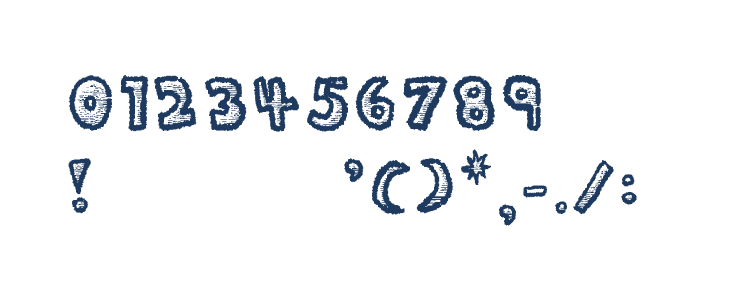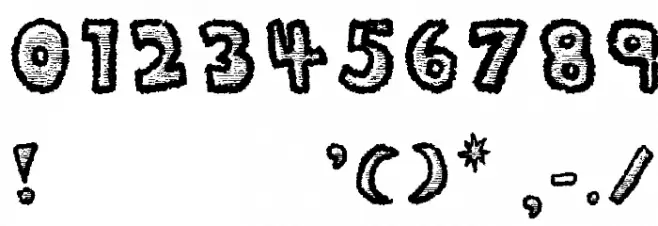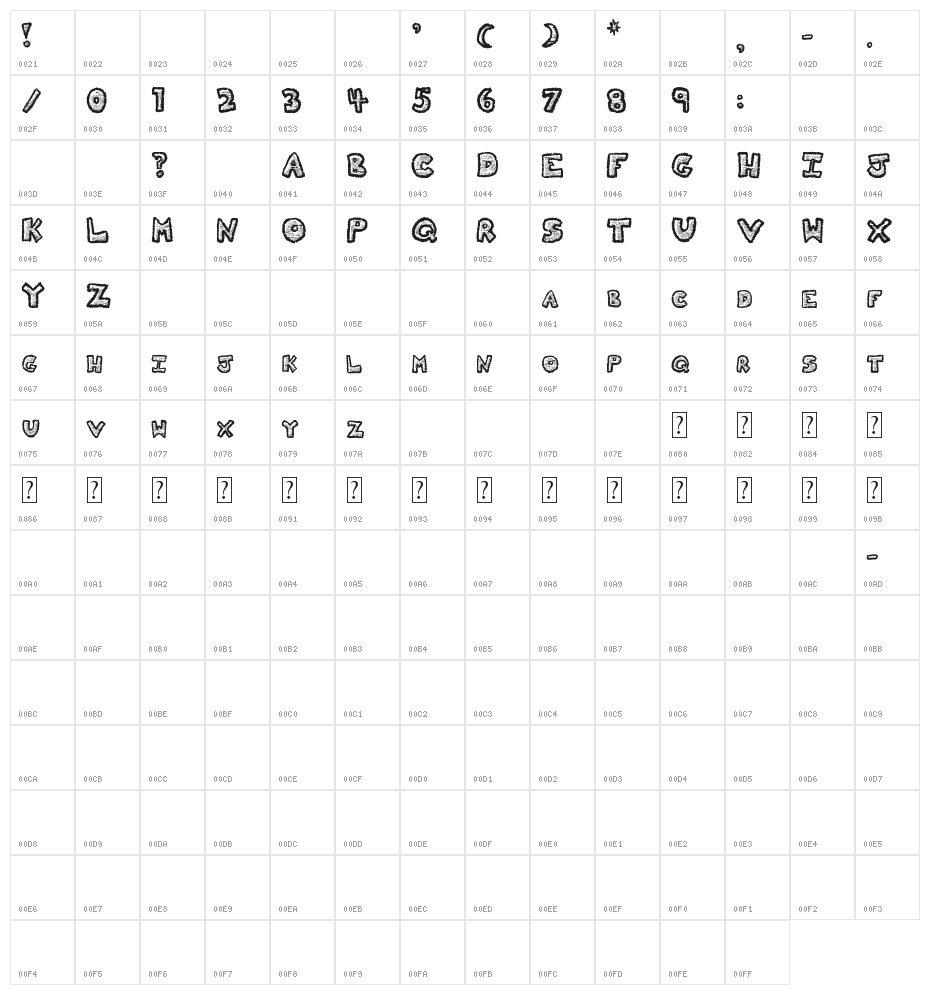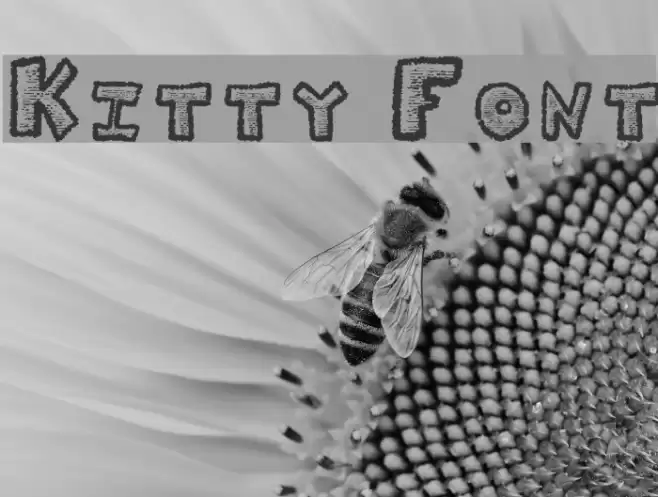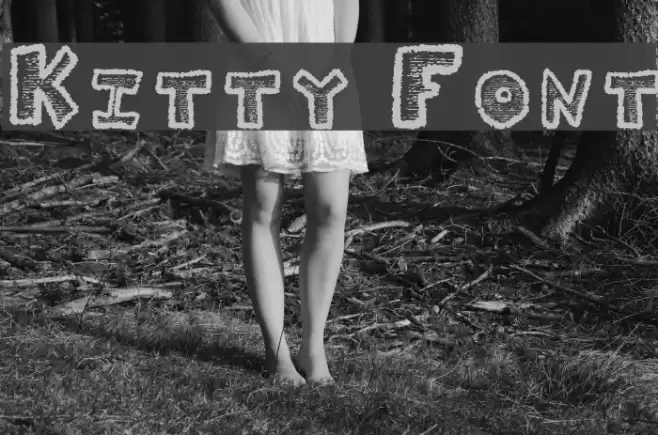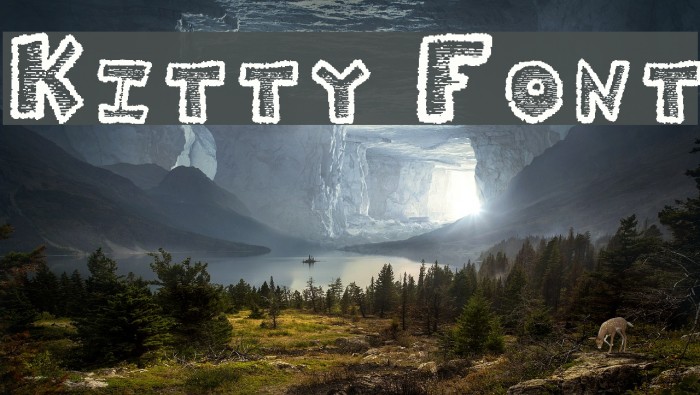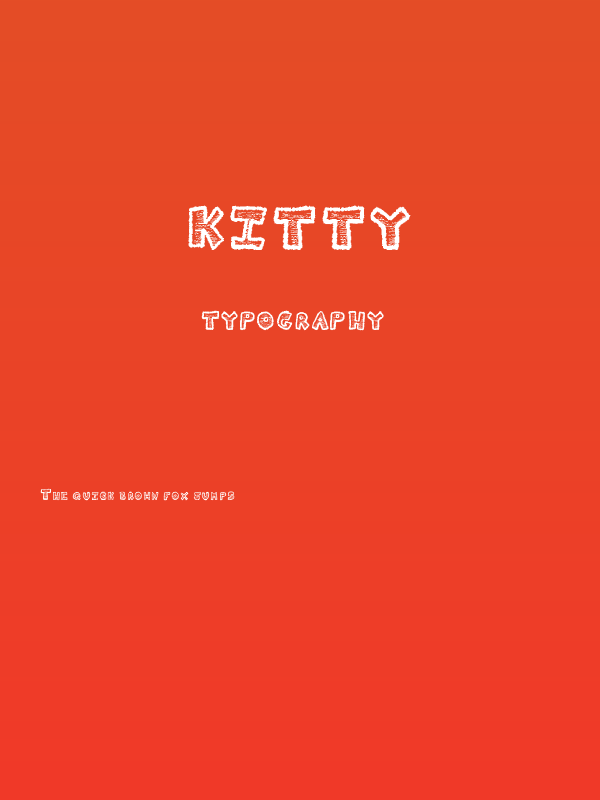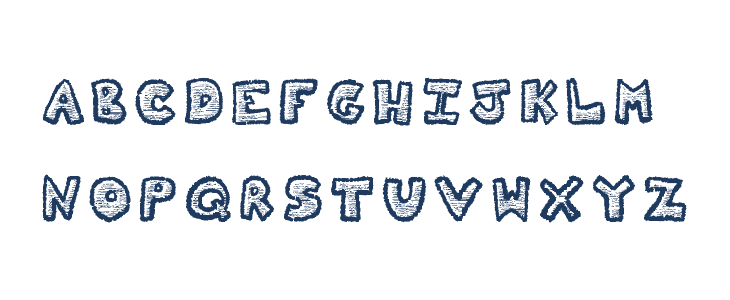
Kitty Font
Kitty Description
This playful and whimsical font features a hand-drawn style with a textured, sketch-like appearance. Each character is outlined with a bold, uneven stroke, giving it a lively and dynamic feel. The letters are slightly irregular, adding to the casual and informal aesthetic. The font maintains a consistent weight throughout, with medium contrast between the thick outlines and the inner strokes. Its unique style is reminiscent of doodles or comic book lettering, making it perfect for projects that require a fun and approachable look.